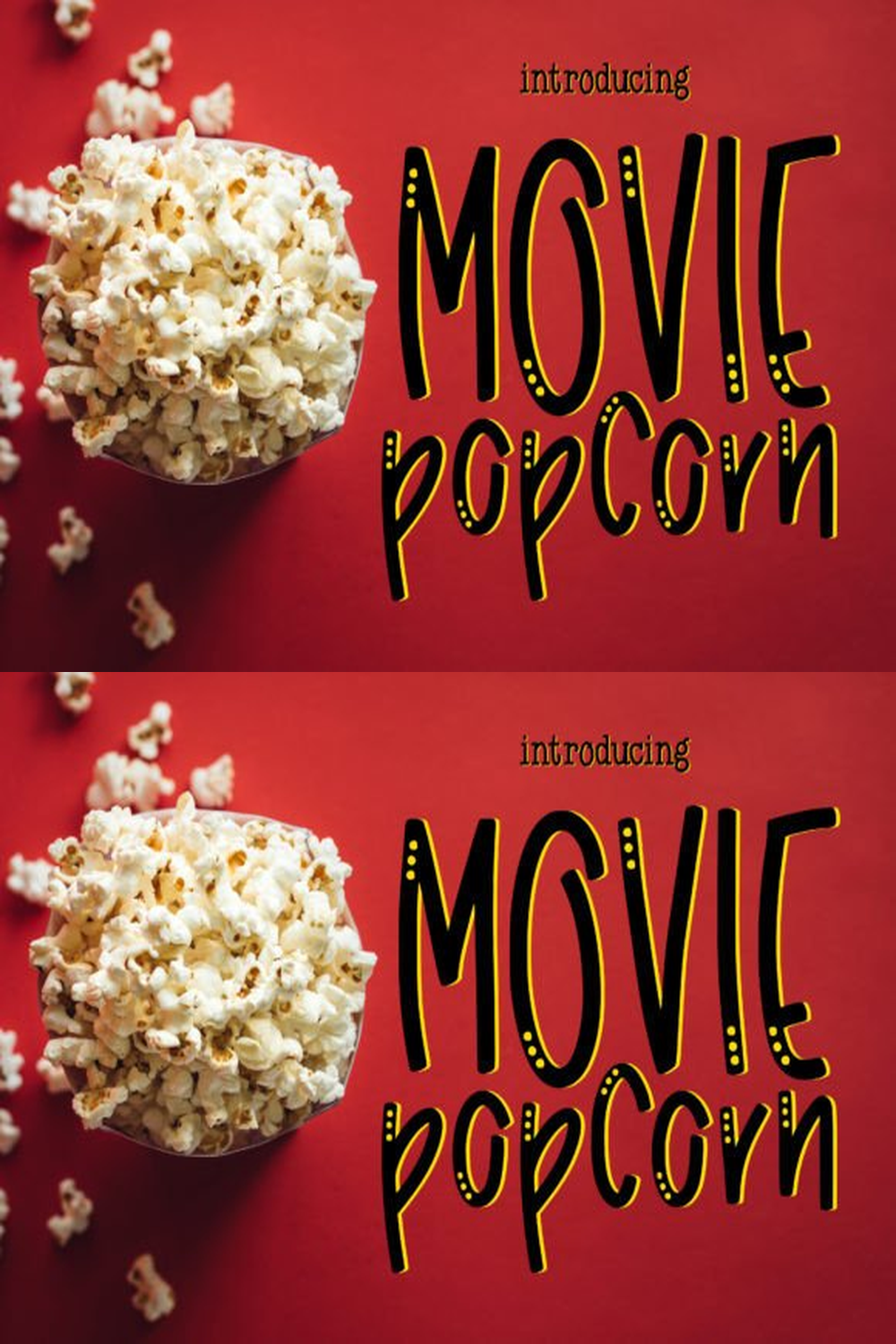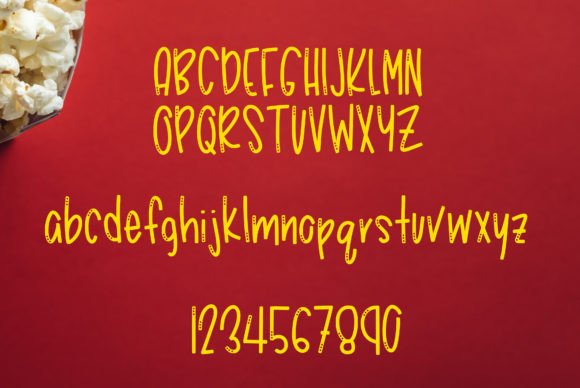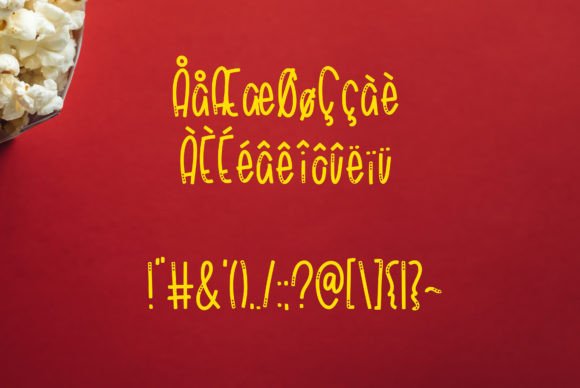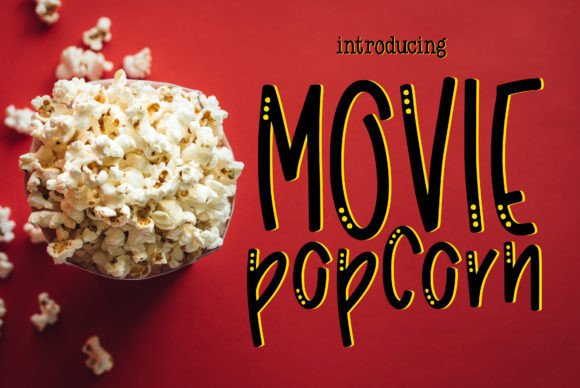
Movie Popcorn Font
About the Movie Popcorn Font
Make a bold statement with Movie Popcorn Font, a powerful and memorable font. Introducing Movie Popcorn, a fun and bold font inspired by the excitement of a night at the movies! With its playful curves and dotted accents, this font is perfect for adding a pop of energy to your designs. Ideal for movie-themed projects, posters, children’s books, party invitations, and more, Movie Popcorn brings a joyful and lively vibe to any creative work. Whether you’re designing for print or digital, this versatile font is sure to capture attention and leave a lasting impression. Get ready to make your designs stand out with Movie Popcorn!